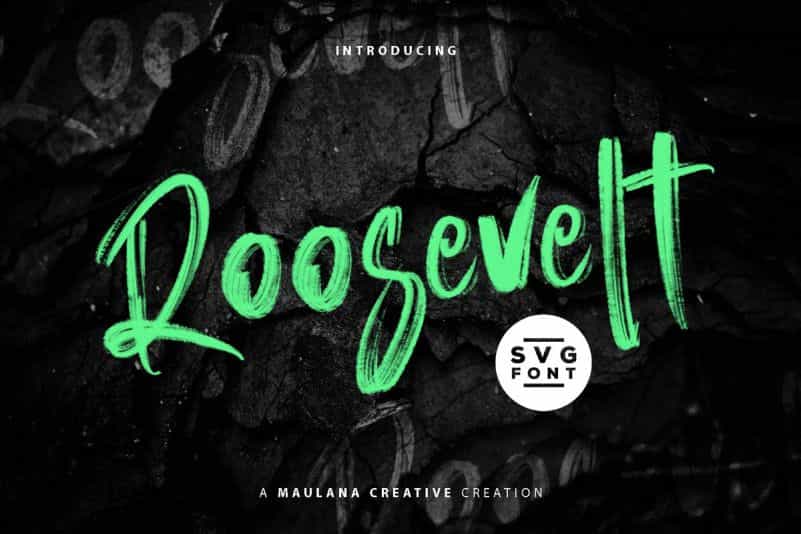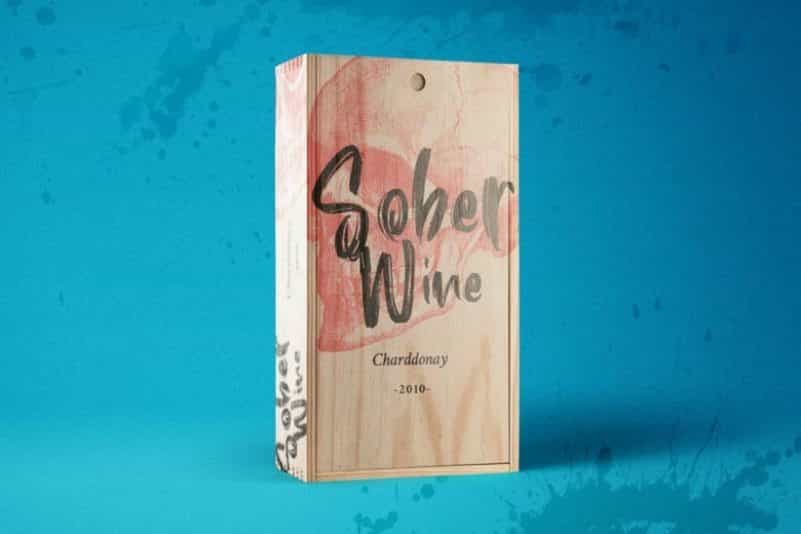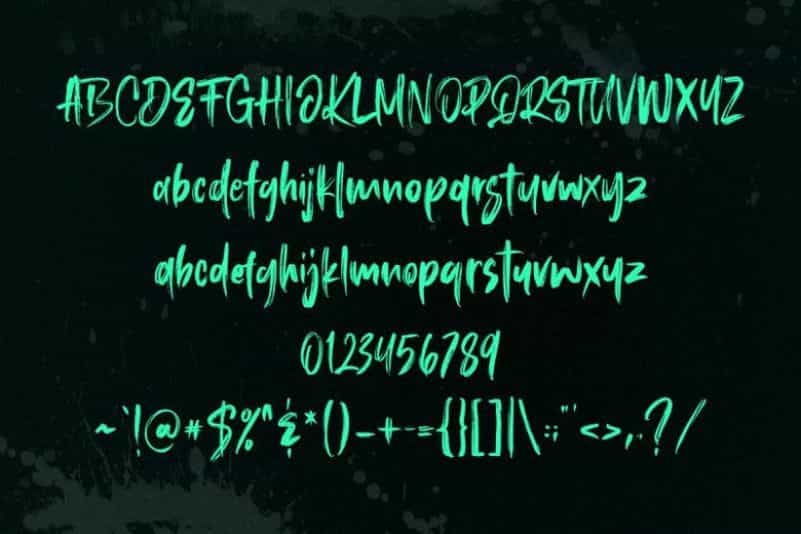
Discover Roosevelt SVG Brush Font, part of the Brush collection—a versatile and unique font perfect for adding a personal touch to your projects. Download it for free and enjoy crafting designs with style, from invitations to social media posts. This font is available exclusively for personal use, giving you the freedom to create without limits. Unlock your creativity with Roosevelt SVG Brush Font today!
Also included in this free font package is Roosevelt Brush Font. A solid brush font perfect for grunge or artistic projects. It adds a handcrafted touch, to your designs. “Roosevelt” is a choice, for signatures, stationery, logos, typography quotes, magazine or book covers website headers, flyers, clothing designs, branding projects, packaging design and more.